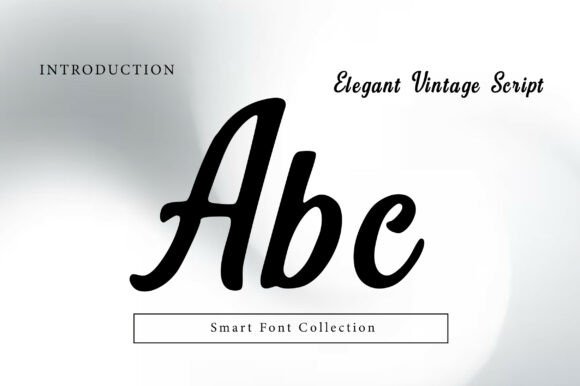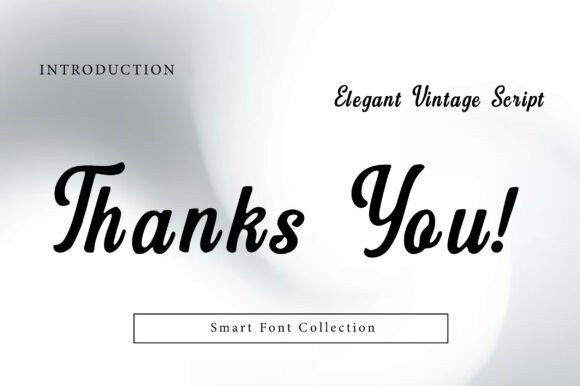
Elegant Vintage Script Font: A Timeless Choice for Sophisticated Designs
In the world of typography, few font styles evoke the same level of elegance and sophistication as a well-crafted vintage script font. Among the many options available to designers and crafters, Elegant Vintage Script stands out as a truly exceptional choice. This beautiful font is designed to bring a touch of classic handwritten charm to any project, making it perfect for a wide range of applications, from wedding invitations and logos to luxury editorial designs and packaging.
The Characteristics of Elegant Vintage Script
Elegant Vintage Script is a graceful, flowing script font that is characterized by its smooth curves, refined strokes, and timeless calligraphic influence. Each letter is carefully crafted to convey a sense of romance, sophistication, and nostalgic elegance, making it an ideal choice for designers and crafters looking to add a touch of vintage charm to their work.
One of the key features of Elegant Vintage Script is its classic handwritten appearance. The font’s flowing curves and connected letters create a sense of movement and fluidity, giving it a dynamic and expressive feel. At the same time, the font’s refined strokes and precise letterforms ensure that it remains highly legible, even at smaller sizes.
Uses for Elegant Vintage Script
Elegant Vintage Script is a versatile font that can be used in a wide range of applications. Some of the most popular uses for this beautiful font include:
- Wedding Invitations: Elegant Vintage Script is a popular choice for wedding invitations, thanks to its romantic and sophisticated appearance. The font’s flowing curves and classic charm make it perfect for formal wedding stationery, save-the-date cards, and other wedding-related designs.
- Logos and Branding: The font’s elegant appearance and timeless charm make it an excellent choice for logos, branding, and packaging. Whether you’re looking to create a luxury brand identity or simply want to add a touch of sophistication to your product packaging, Elegant Vintage Script is a great option.
- Luxury Editorial Designs: Elegant Vintage Script is also well-suited to luxury editorial designs, such as high-end fashion magazines, catalogs, and advertising campaigns. The font’s refined strokes and classic appearance make it perfect for conveying a sense of luxury and sophistication.
- Signage and Labels: The font’s clear and legible letterforms make it an excellent choice for signage and labels. Whether you’re creating a sign for a business or designing a label for a product, Elegant Vintage Script is a great option.
Why Choose Elegant Vintage Script?
So why choose Elegant Vintage Script over other font options? Here are just a few reasons why this beautiful font stands out:
- Timeless Elegance: Elegant Vintage Script has a timeless elegance that never goes out of style. The font’s classic appearance ensures that it will remain a popular choice for years to come.
- Versatility: The font’s versatility makes it suitable for a wide range of applications, from wedding invitations to luxury editorial designs.
- High Legibility: Despite its elegant appearance, Elegant Vintage Script remains highly legible, even at smaller sizes.
- Unique Character: The font’s unique character and charm set it apart from more generic font options.
Tips for Using Elegant Vintage Script
To get the most out of Elegant Vintage Script, here are a few tips to keep in mind:
- Use it Sparingly: While Elegant Vintage Script is a beautiful font, it’s best used sparingly. Consider using it as a headline or title font, and pairing it with a simpler font for body text.
- Experiment with Colors: The font’s elegant appearance lends itself well to a range of colors and textures. Experiment with different colors and textures to find the perfect combination for your design.
- Pay Attention to Kerning: As with any font, pay attention to kerning to ensure that your text looks professional and polished.
In conclusion, Elegant Vintage Script is a truly exceptional font that offers a unique combination of elegance, sophistication, and timeless charm. Whether you’re a designer or crafter looking to add a touch of vintage charm to your work, this beautiful font is sure to impress. With its smooth curves, refined strokes, and classic handwritten appearance, Elegant Vintage Script is the perfect choice for a wide range of applications, from wedding invitations and logos to luxury editorial designs and packaging.